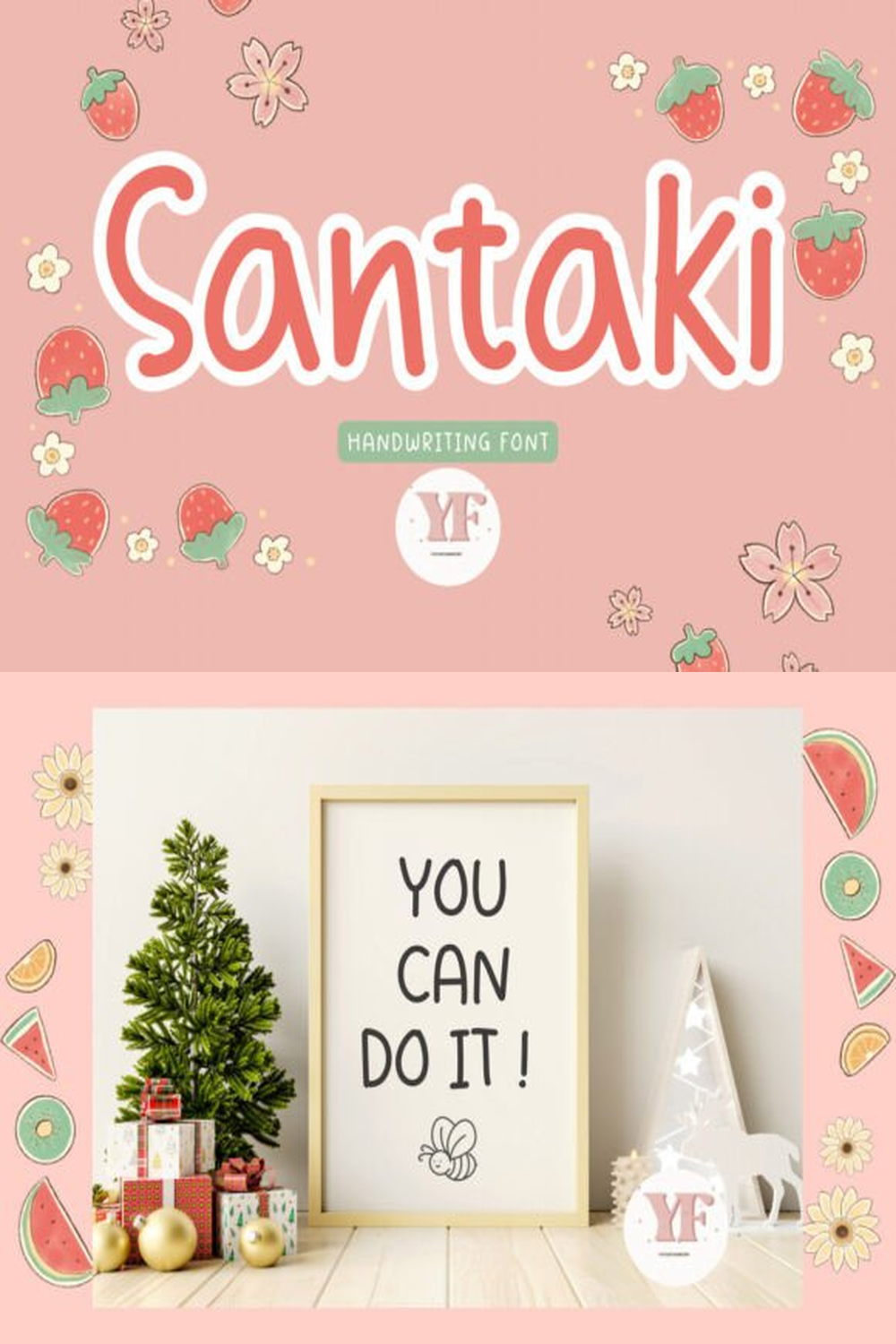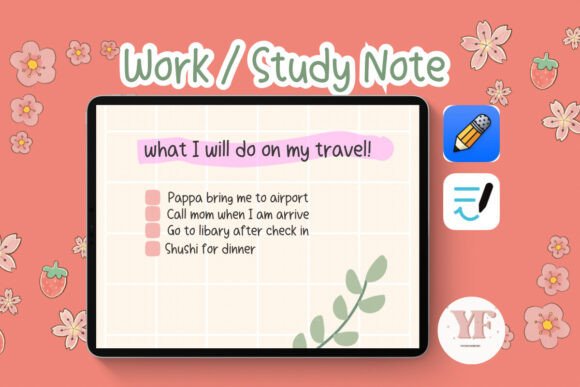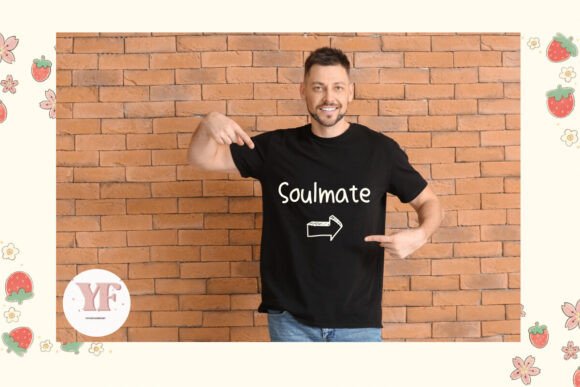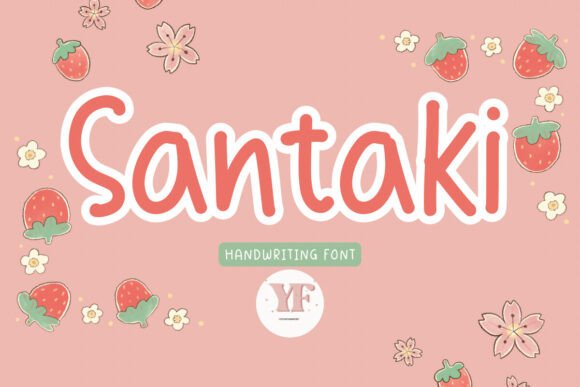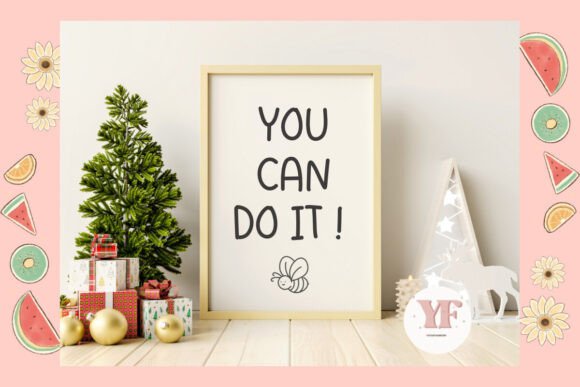
Santaki Font: A Cute Handwritten Font for DIY & Cricut Projects!
About the Santaki Font
Discover the charm of Santaki Font. This font is a perfect blend of modern aesthetics and classic appeal. Santaki is a stylish handwriting font that blends a mono-line structure with a free-flowing, organic design. With its clean yet casual strokes, this font captures the essence of handwritten notes, making it perfect for school assignments, journals, and personal projects. Its balanced yet slightly uneven letterforms evoke the charm of spontaneous writing, while the uniform line thickness ensures readability. Santaki adds a personal, artistic touch to any text, offering a playful yet professional vibe. Ideal for note-taking, planners, and creative school projects, this free-flowing font brings a human touch to every page.